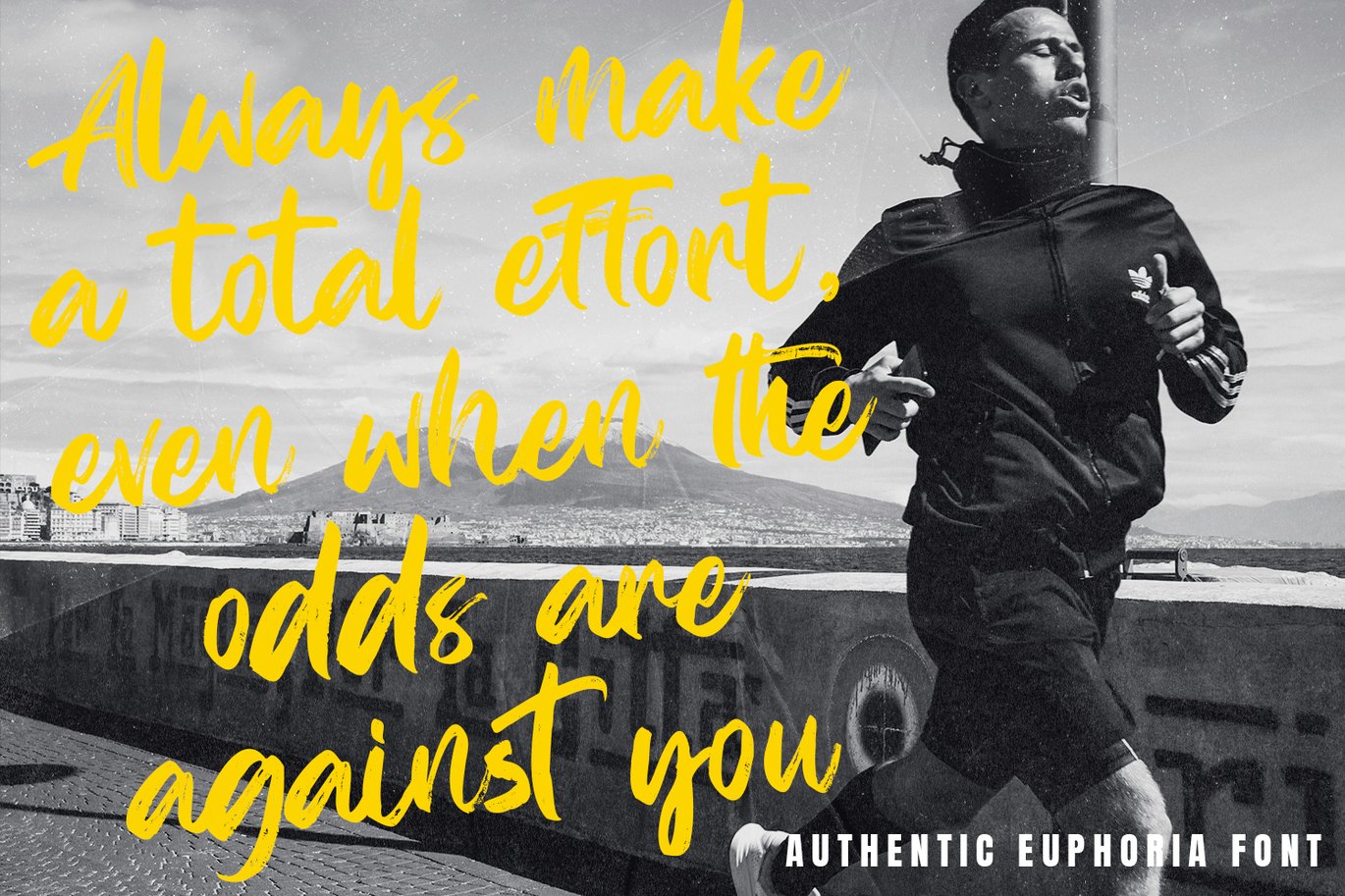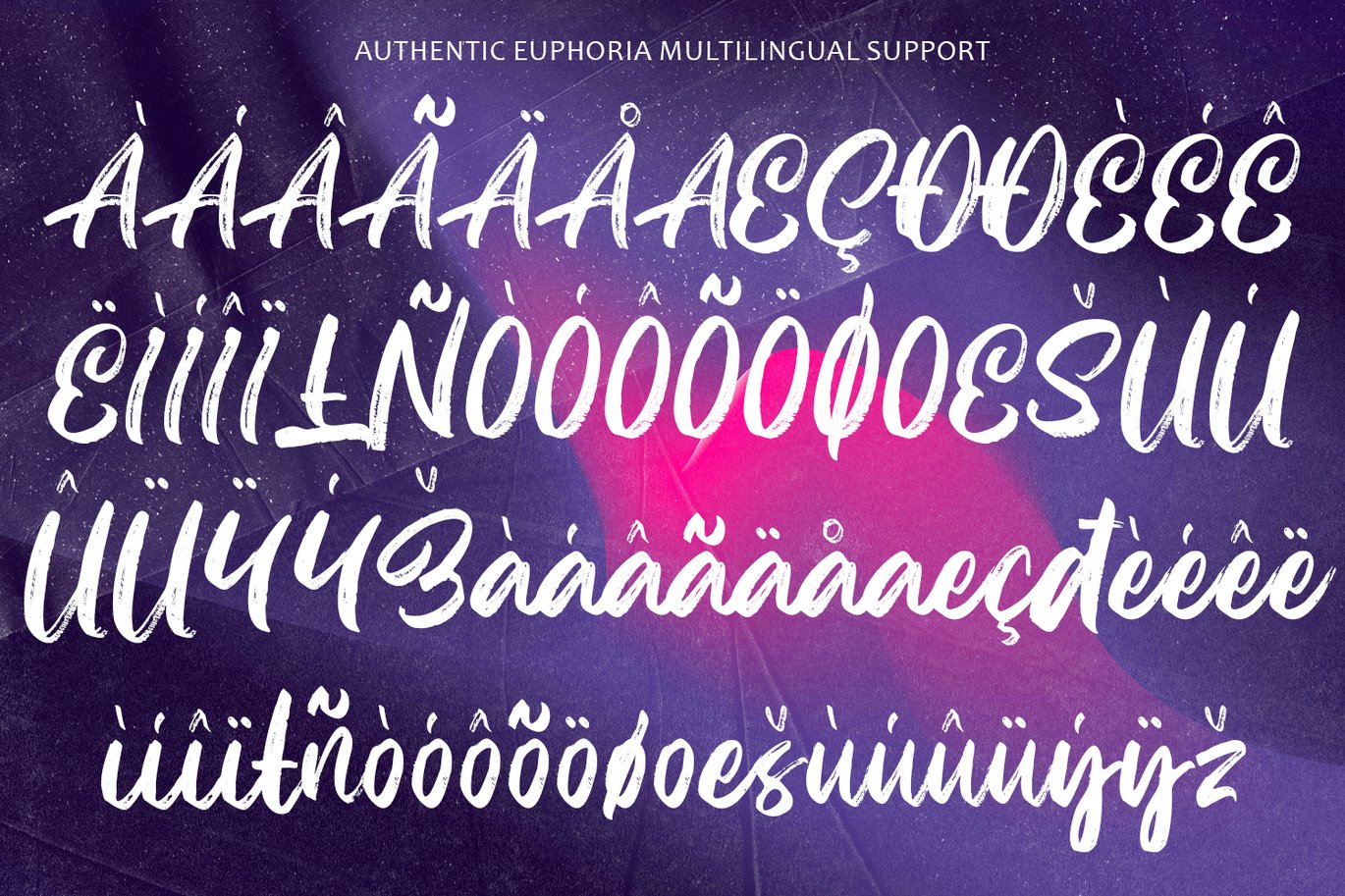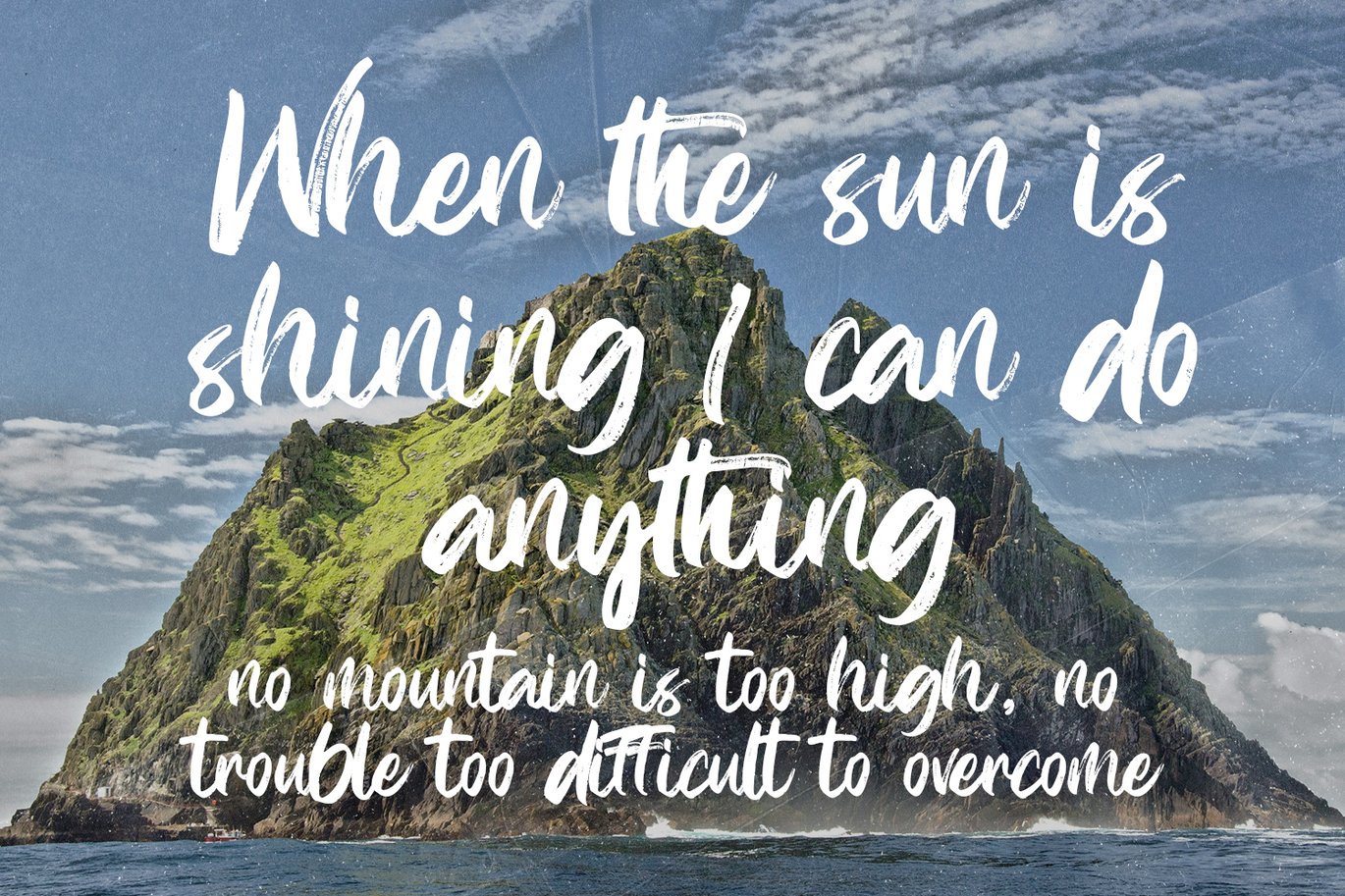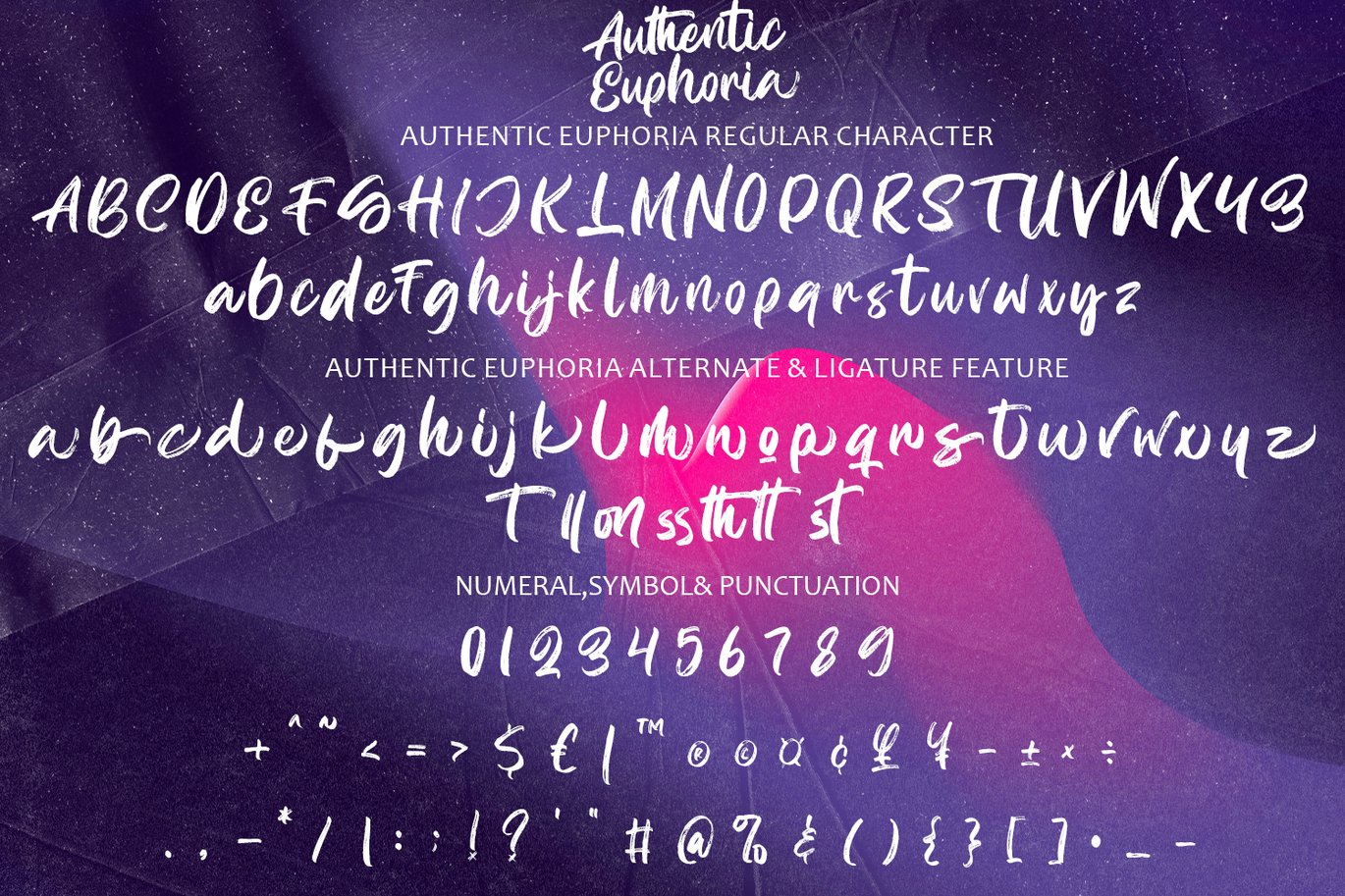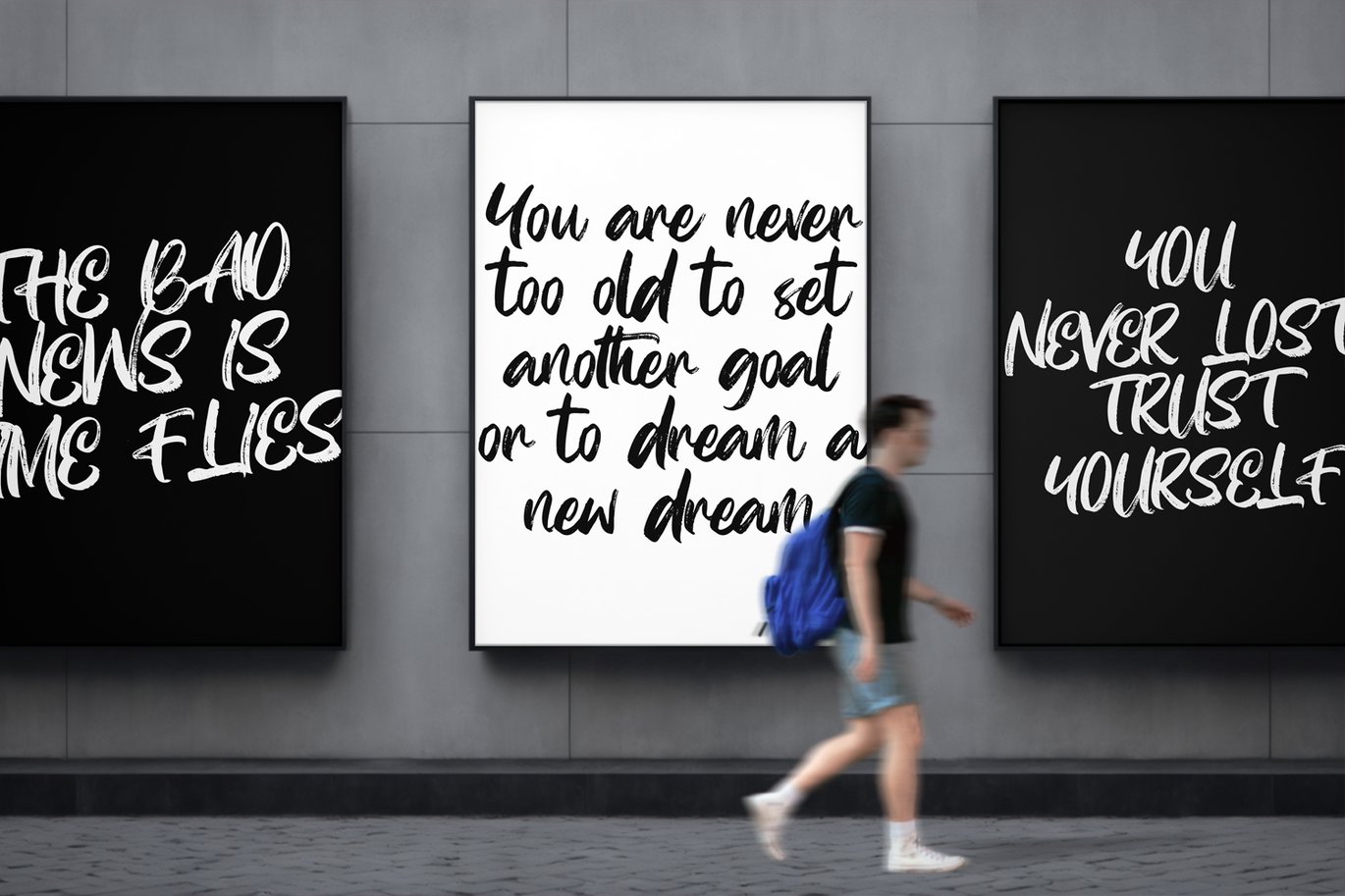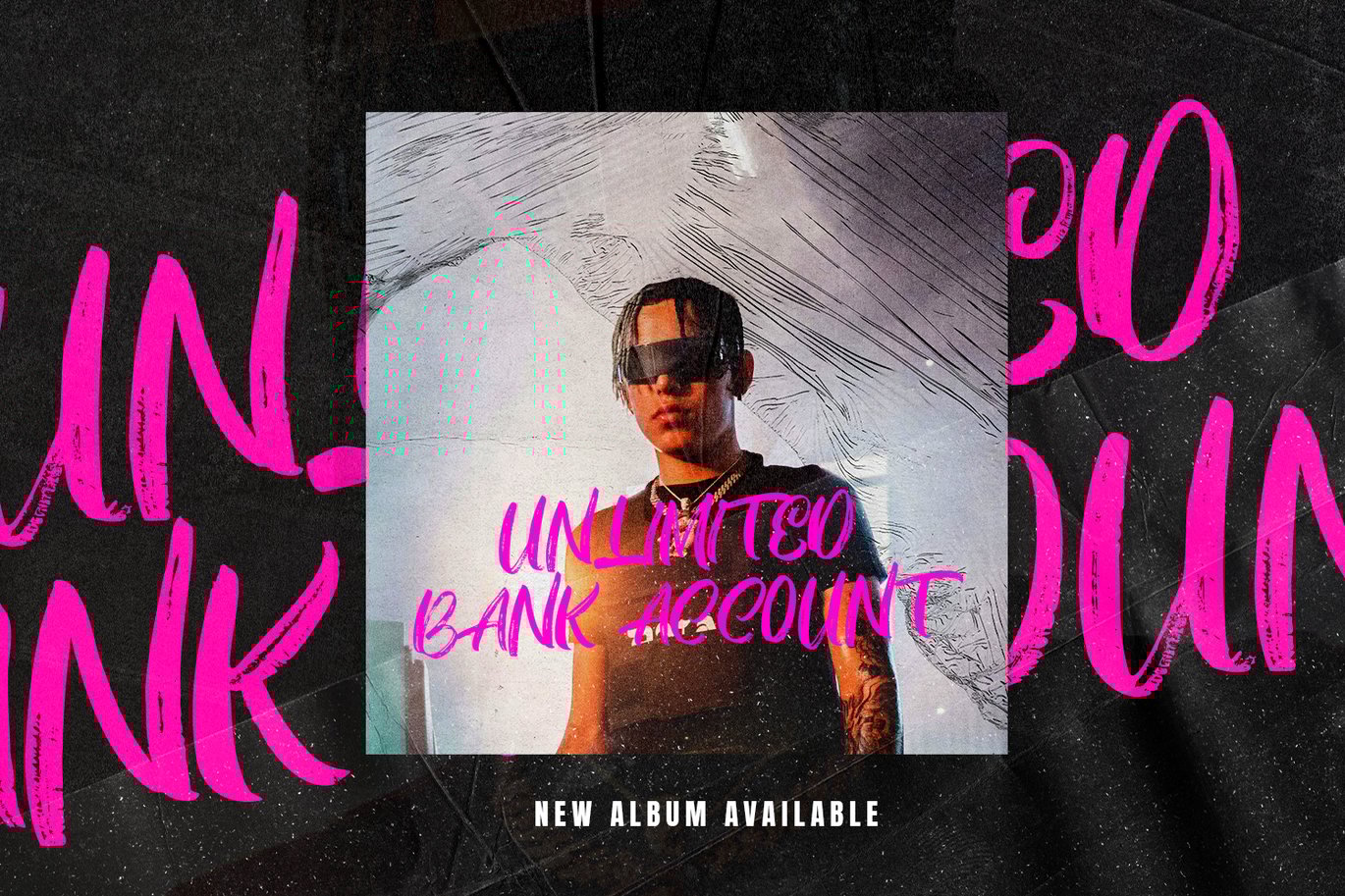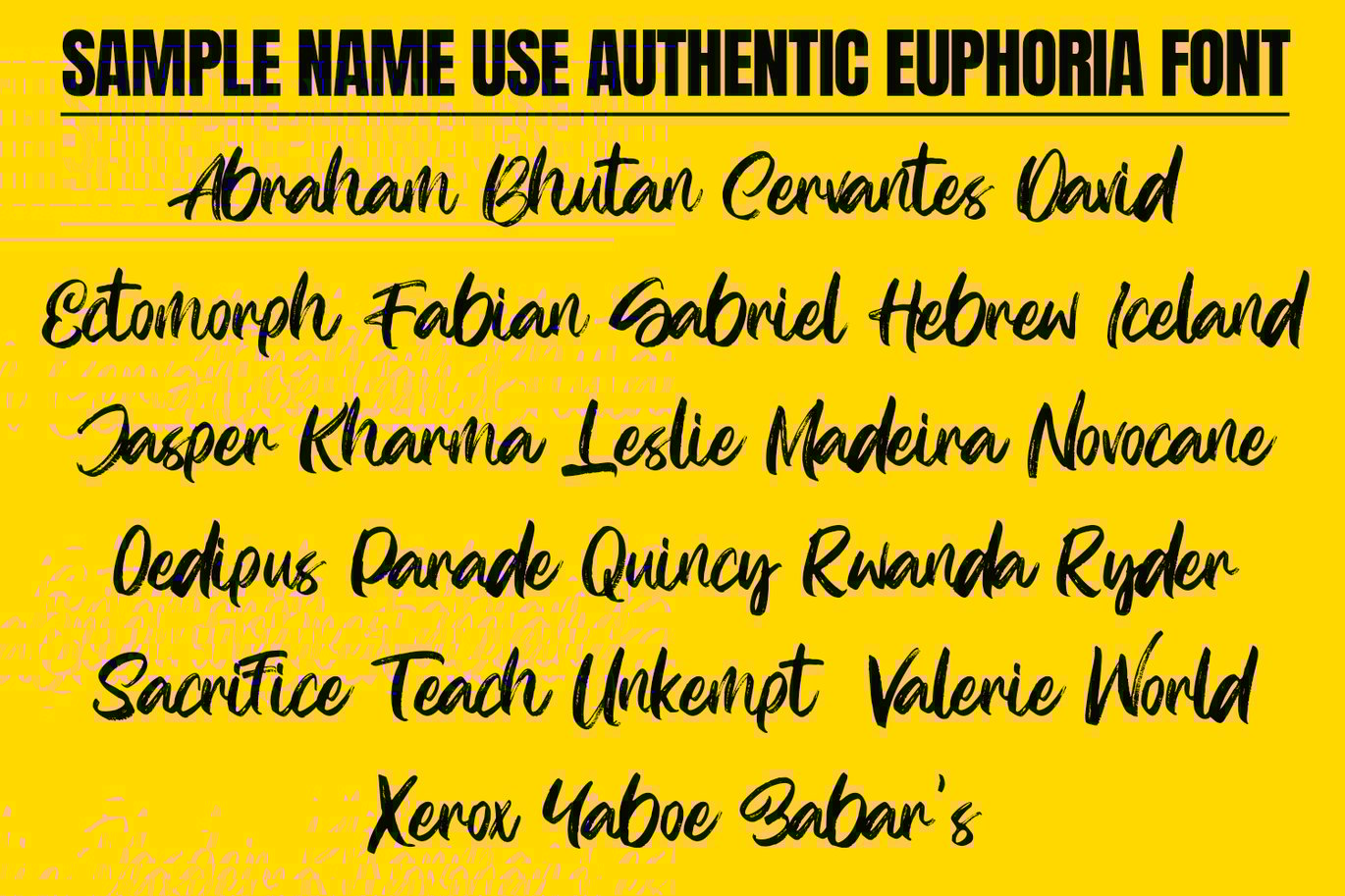
Authentic Euphoria – Handdraw Brush Font
Authentic Euphoria – Handdraw Brush Font contains a lowercase, and uppercase, symbol, and also supports multi-language. There’s a lot of ligature in this font. Authentic Euphoria – Handdraw Brush Font also comes with ligatures, stylistic alternates, and many more.
this font is suitable for fashion, branding, catalog, and other design that you want.